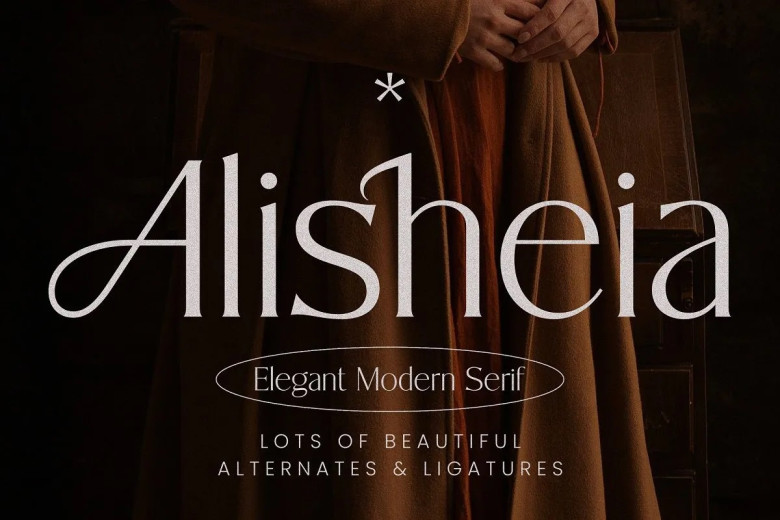
Alisheia Font
Alisheia is an elegant, contemporary serif typeface perfect for use on luxurious projects. The Alisheia font features timeless style perfect for invitations, logos, masterheads and masterheads – not to mention being equipped with plenty of options and biners to help create original and custom logos or web headers!
Alisheia Serif Font